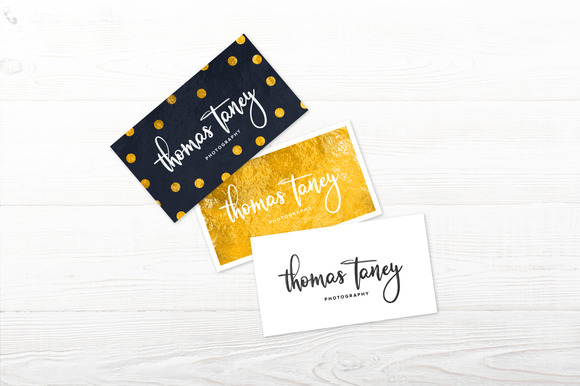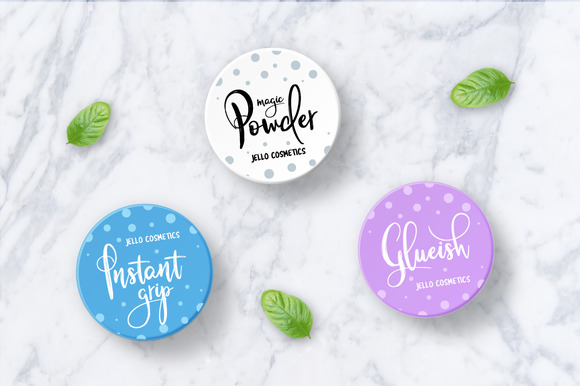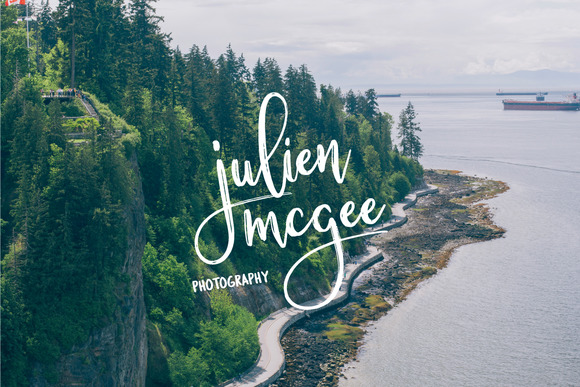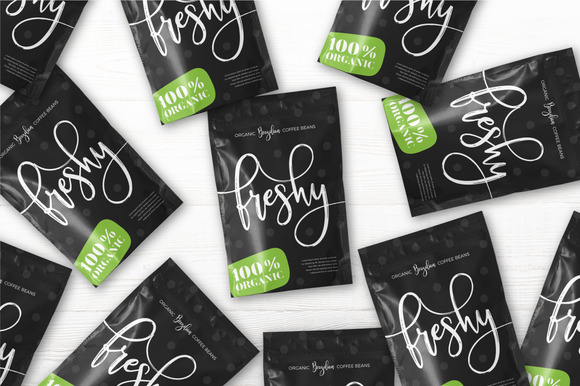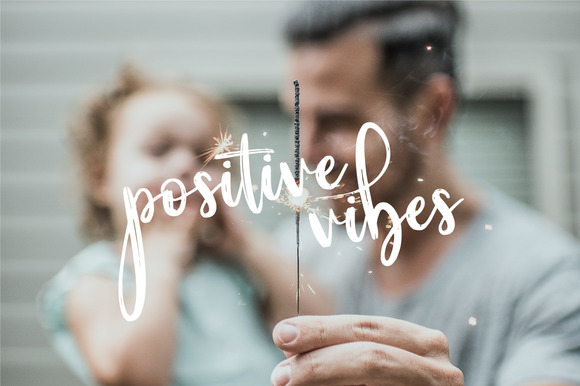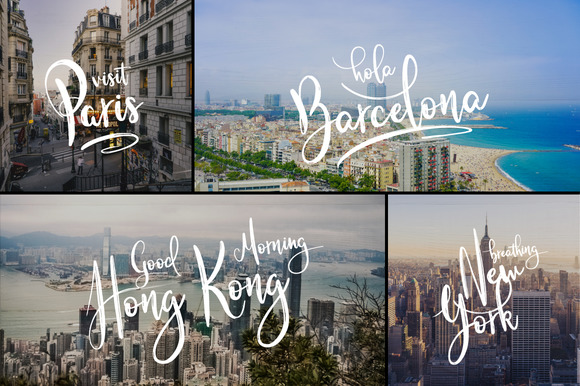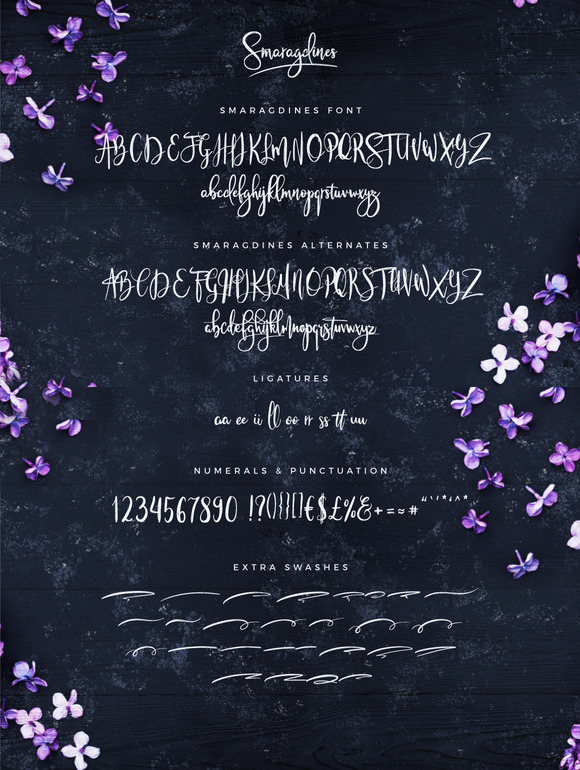
Smaragdines Font + Extras
I’m happy to introduce you to my latest script font that I’ve carefully handwritten in rough, bouncy and funky style! It gives your design that modern, but personal look that will make your packaging designs, logos and text overlays look astonishing.